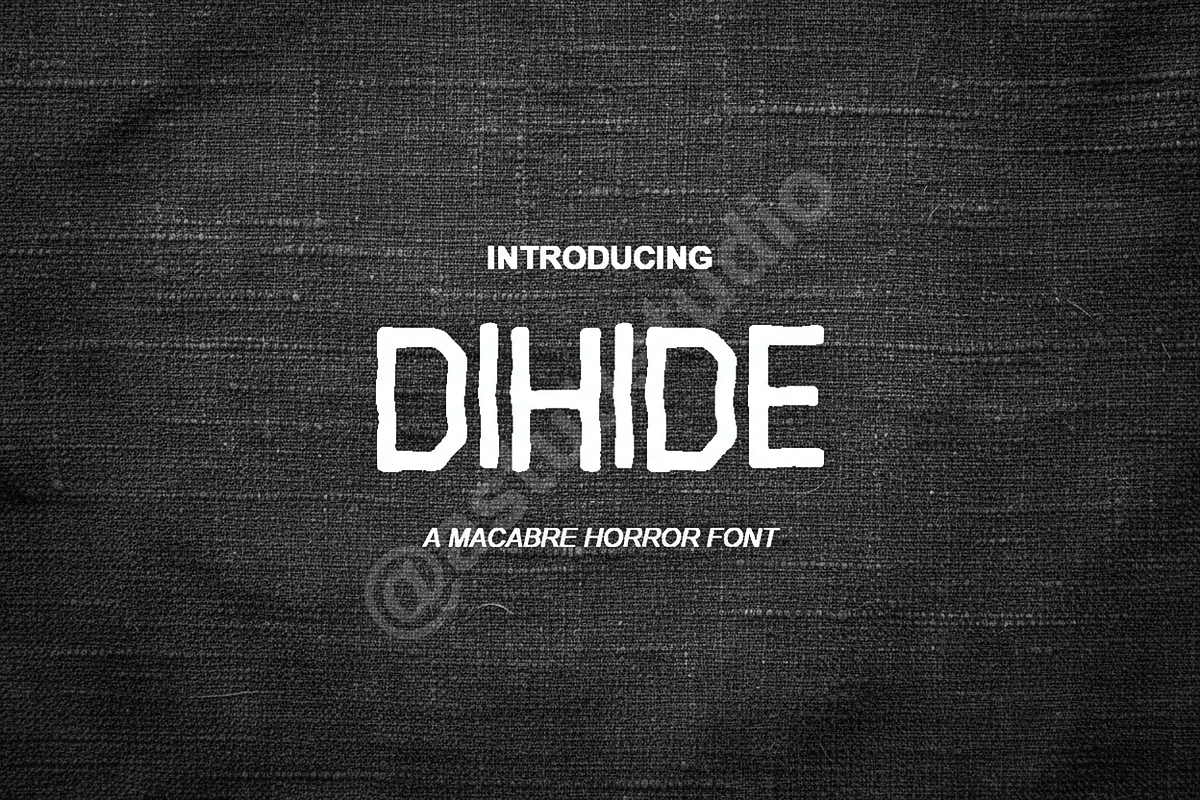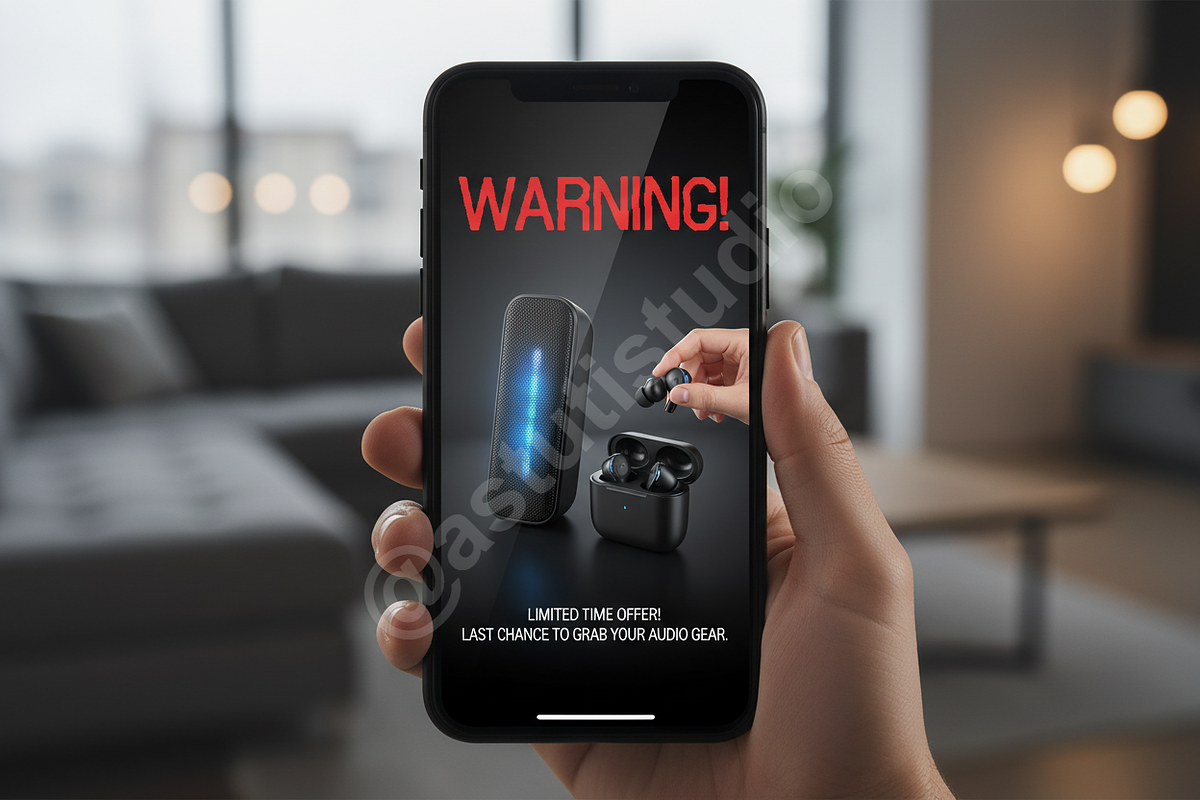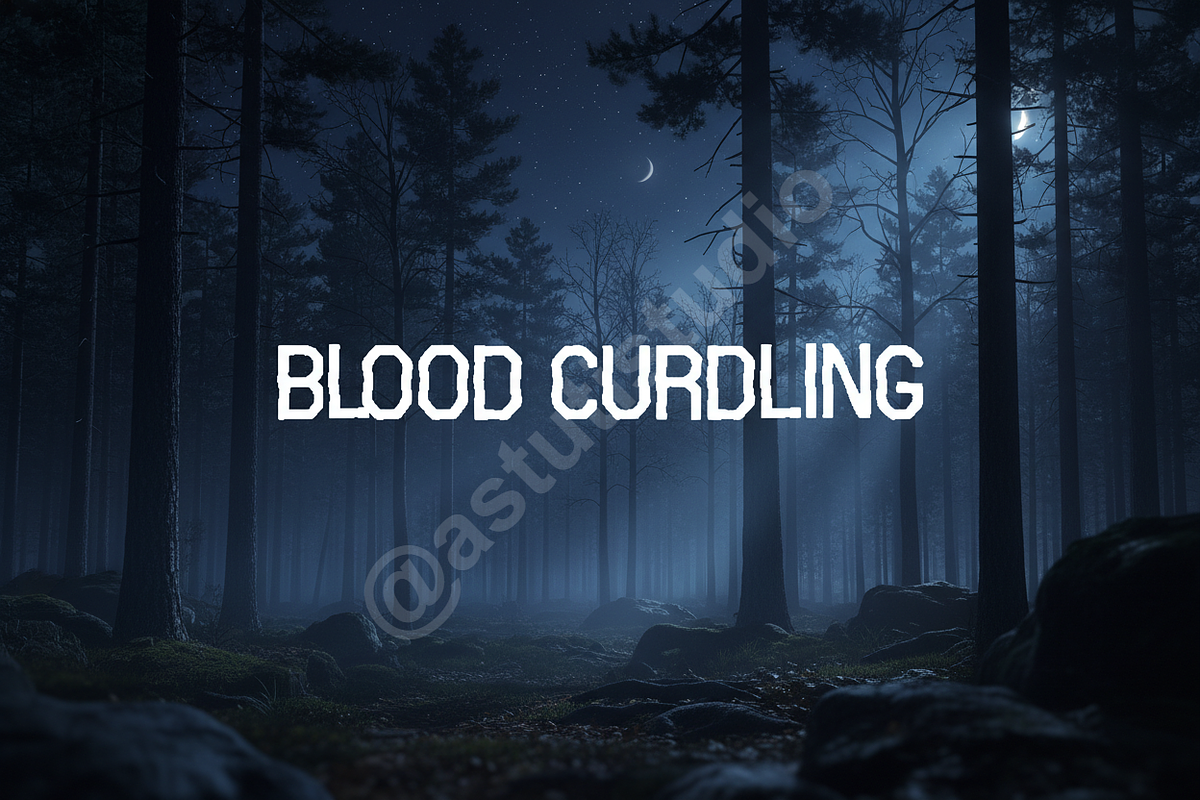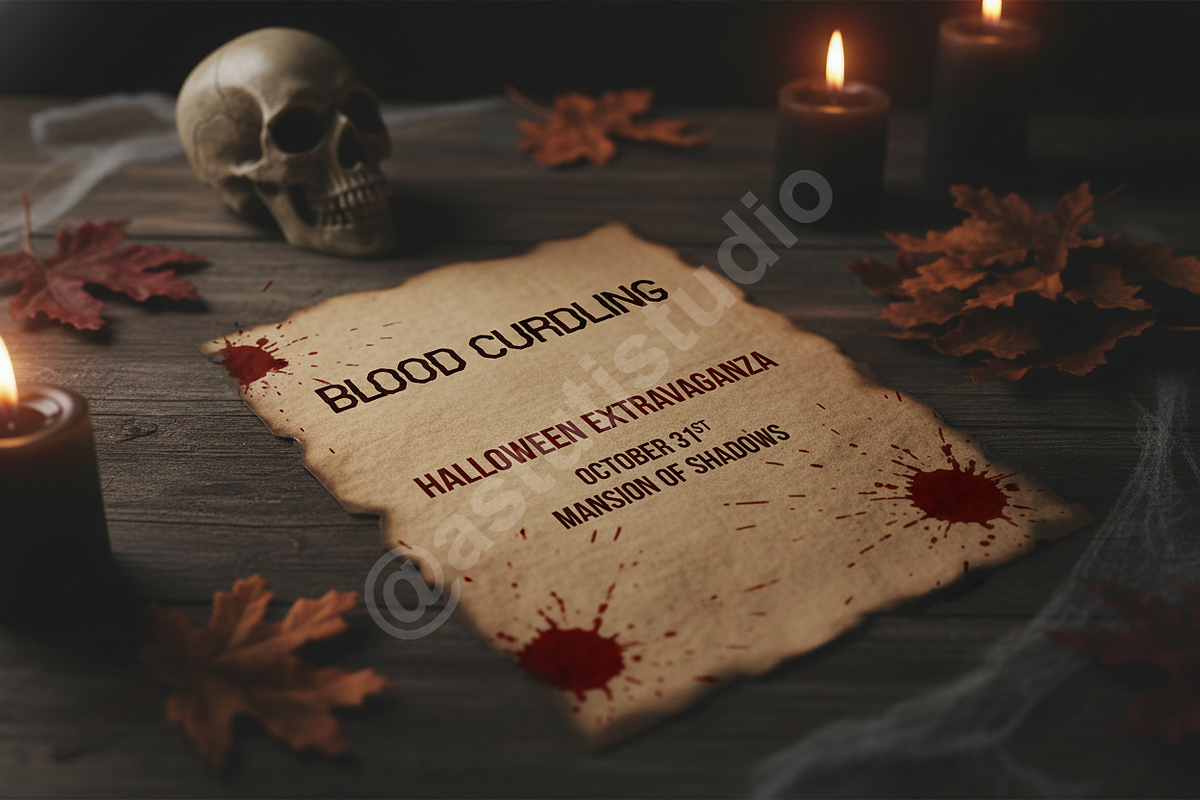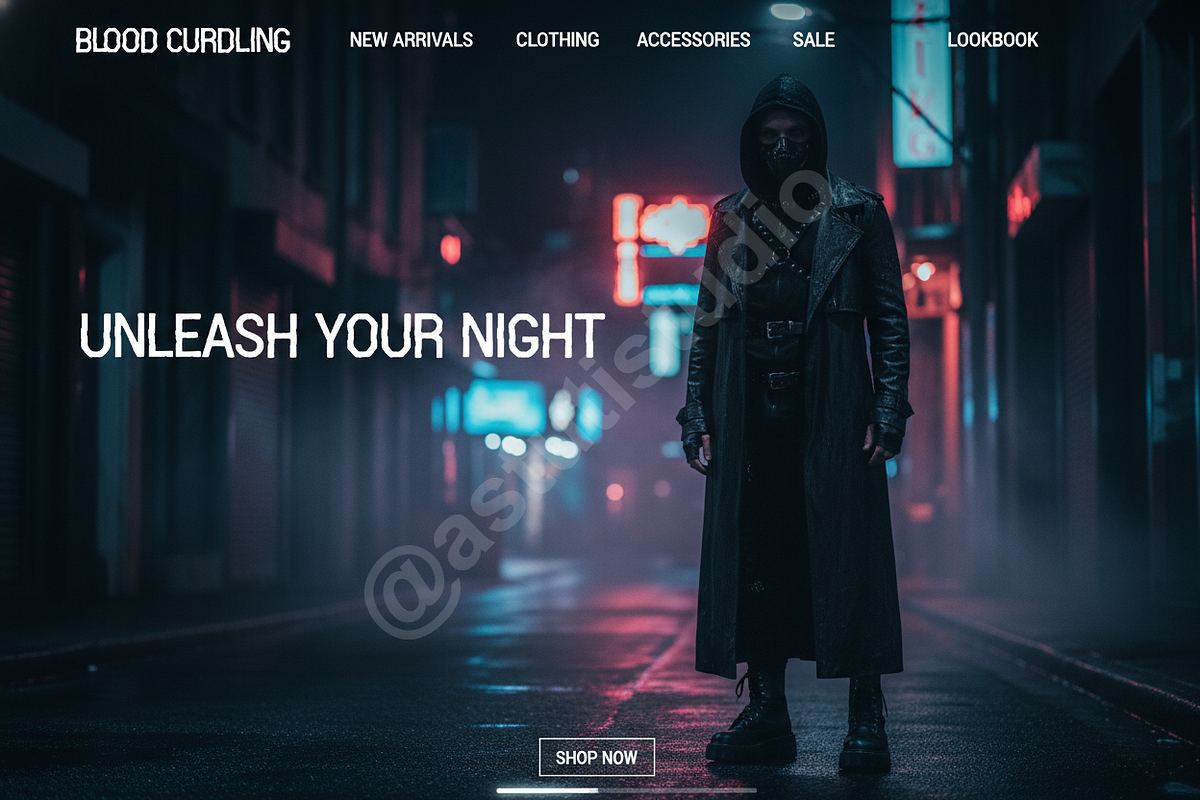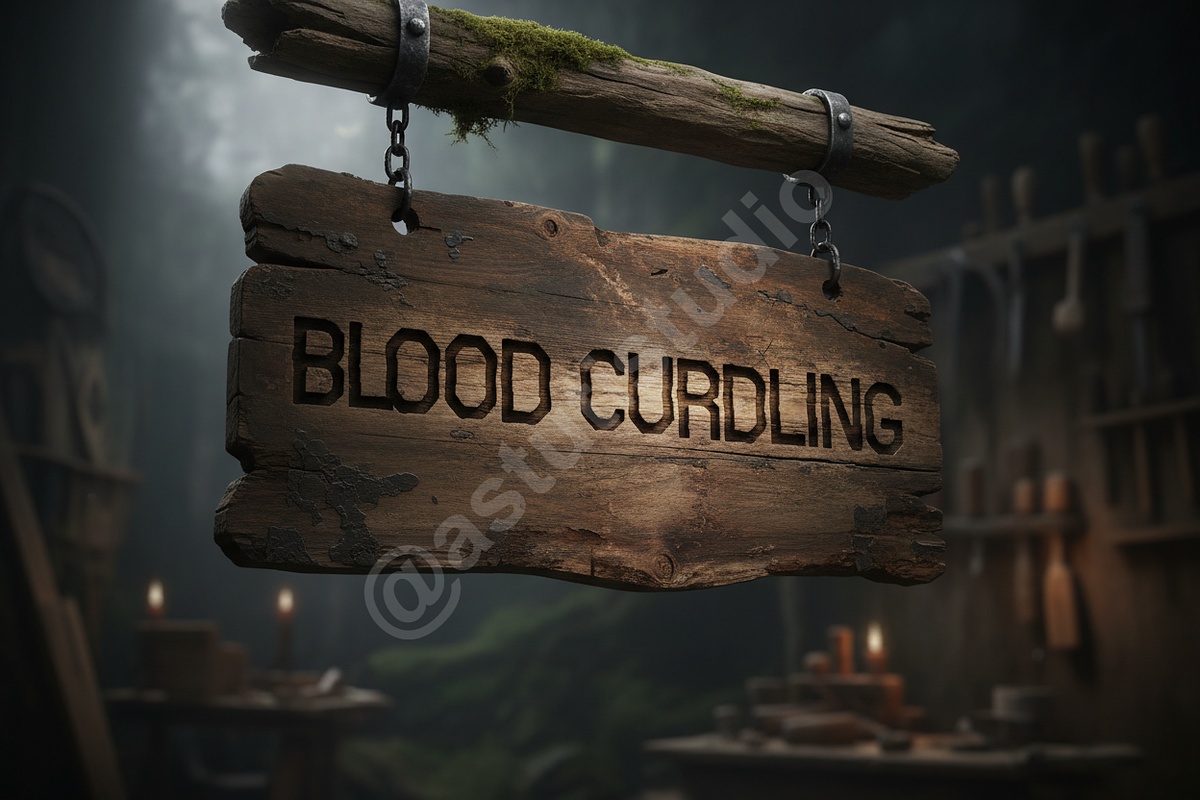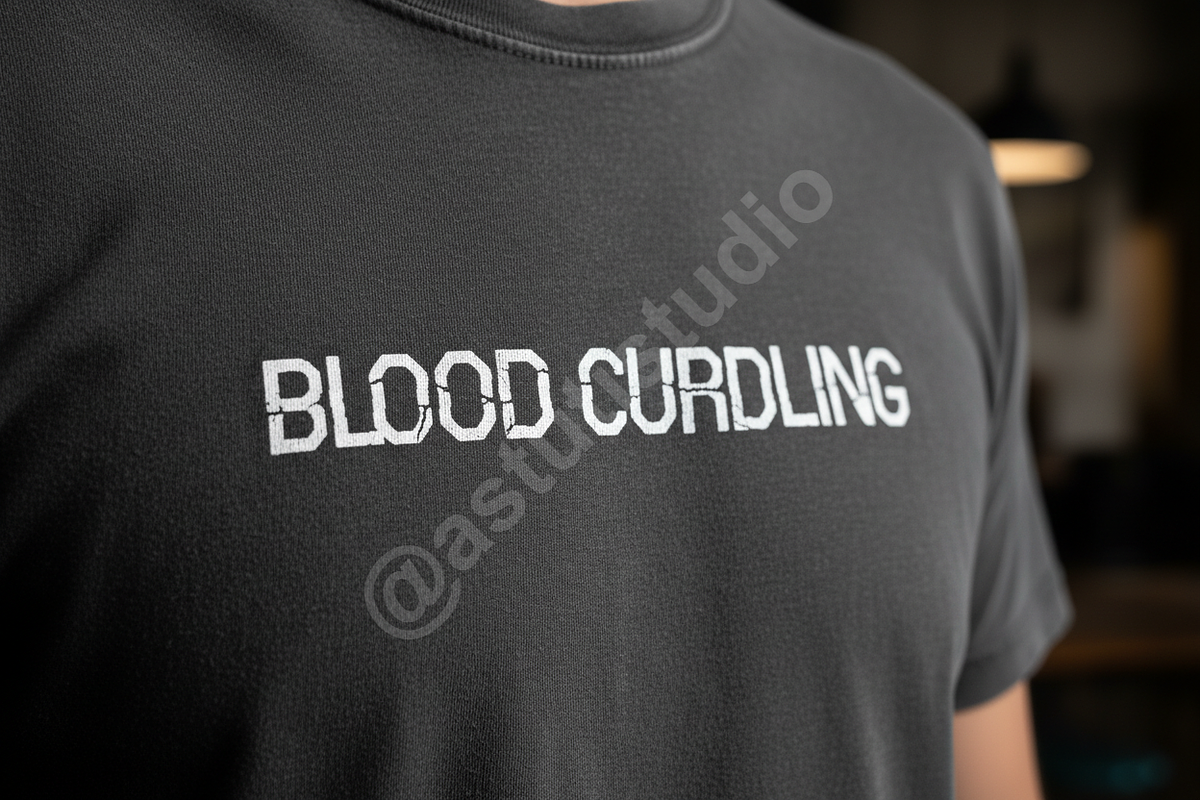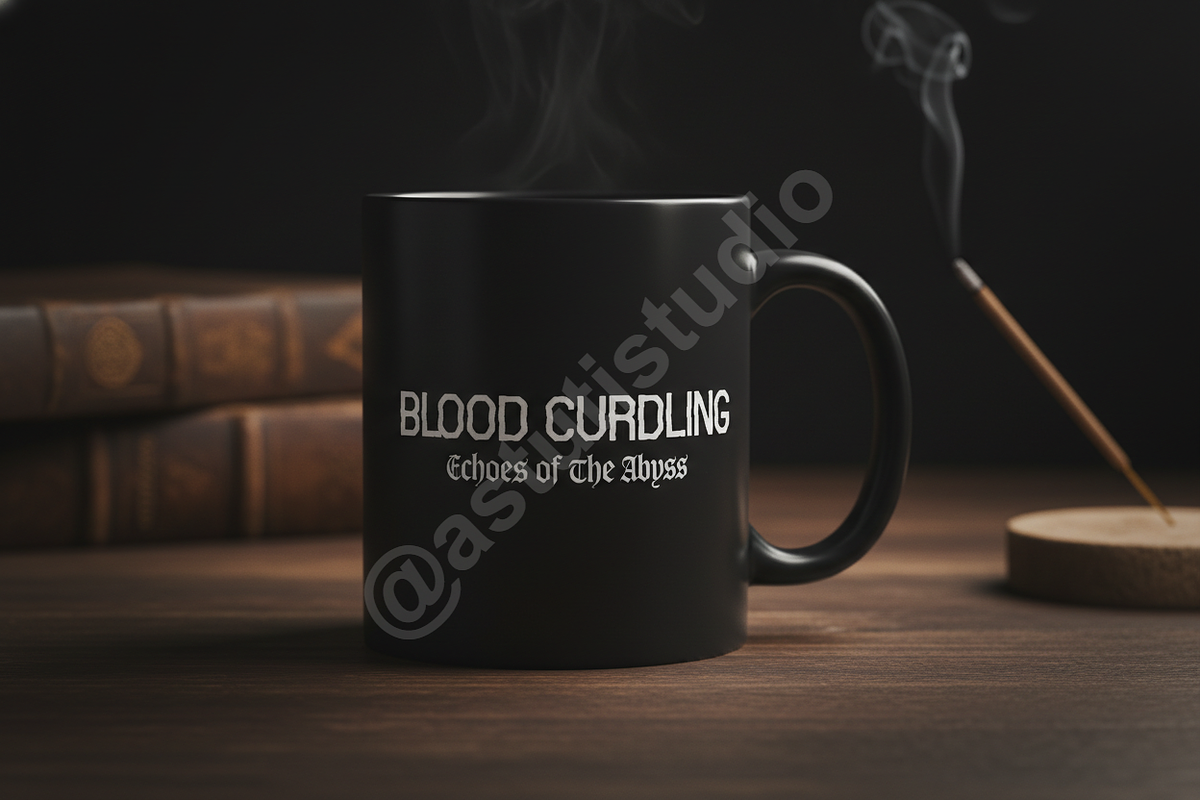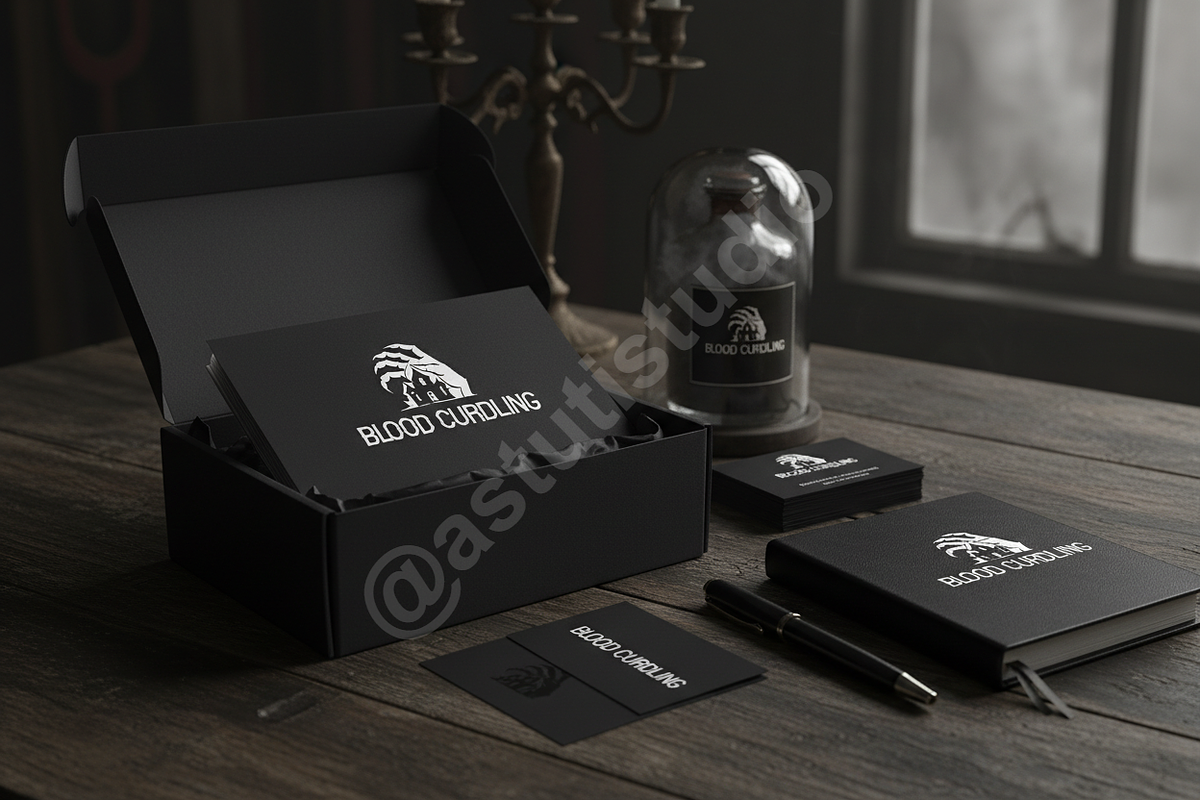
Dihide – Premium Serif Typeface for
Welcome to Dihide, an exquisitely crafted serif typeface designed to embody sophistication and timeless elegance. Dihide is your ultimate choice for projects demanding a touch of luxury, making it perfect for high-end branding, captivating editorial layouts, and impactful social media campaigns. Its clean lines and refined curves ensure your message is delivered with clarity and distinguished style.
- Elegant Uppercase & Lowercase Characters: Designed for maximum legibility and aesthetic appeal.
- Comprehensive Punctuation & Numerals: Complete set for all your professional typesetting needs.
- Multilingual Support: Extend your reach with support for various international languages.
- Stylistic Alternates & Ligatures: Enhance your designs with unique letter combinations and creative options.
- Timeless Versatility: Ideal for logos, headlines, body text, packaging, and digital media.